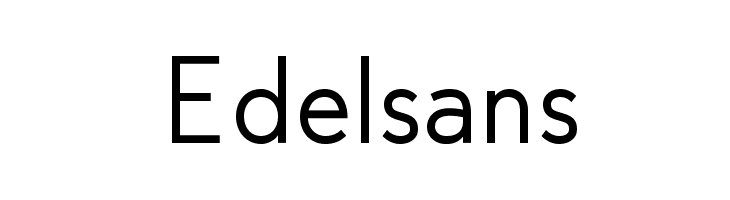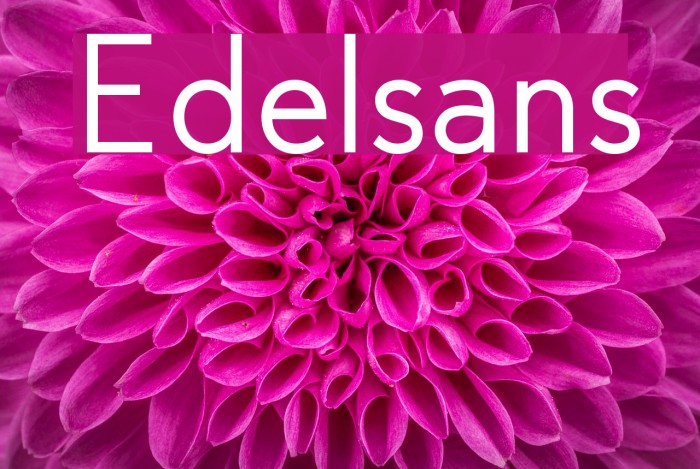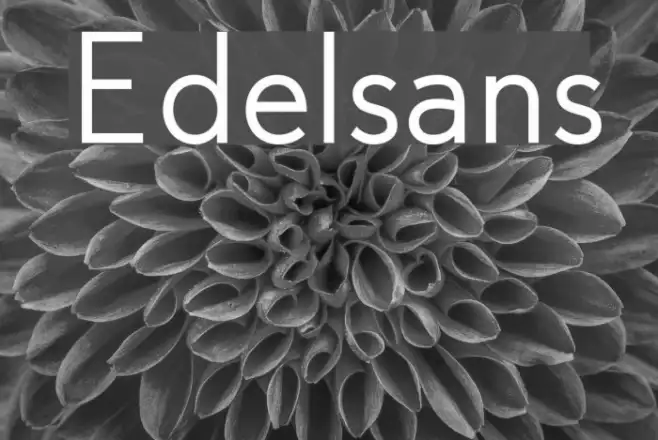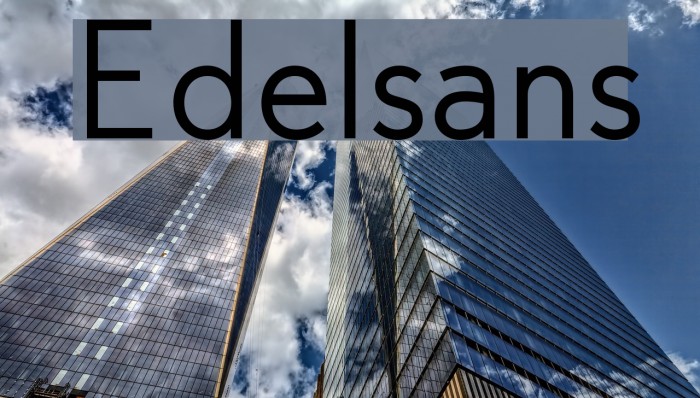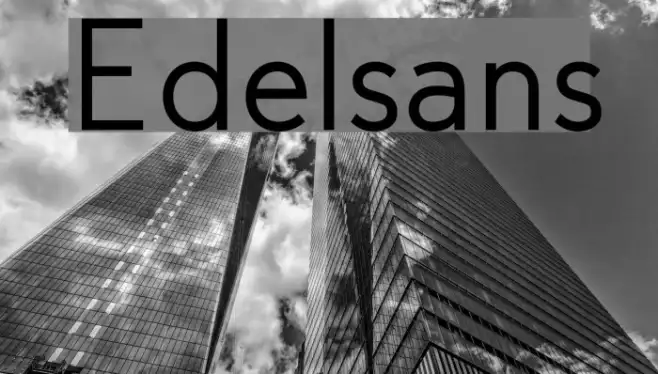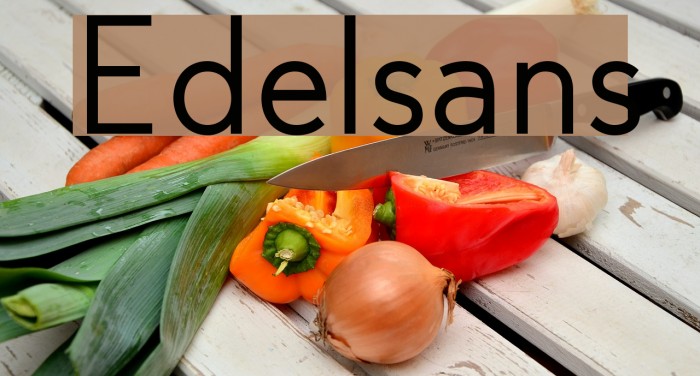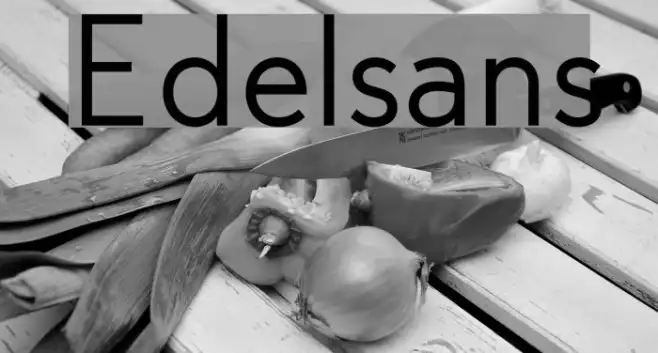
Edelsans Font
This font features a clean and modern sans-serif design, characterized by its geometric shapes and uniform stroke widths. The uppercase letters are bold and striking, while the lowercase letters maintain a consistent and harmonious appearance. The numerals are clear and easily distinguishable, making them suitable for various applications. The special characters are well-integrated, adding to the font's versatility. Overall, this typeface exudes a contemporary and professional aesthetic, ideal for digital and print media.
A modern sans-serif font with geometric shapes and uniform strokes.
• Proposed Projects: Ideal for branding, web design, advertising, and editorial layouts.
• Category: Sans-Serif
• Contrast: Low
• Overall Style: Modern
• Use Case: Headlines, Body text, Logos